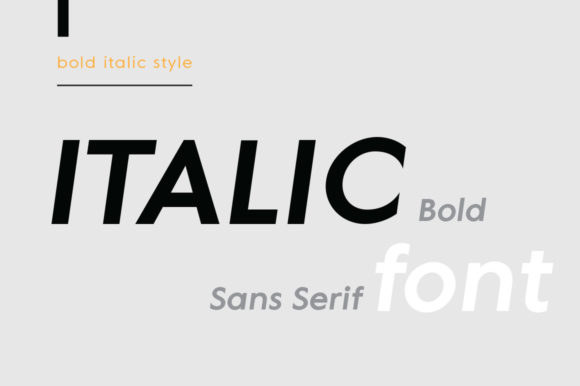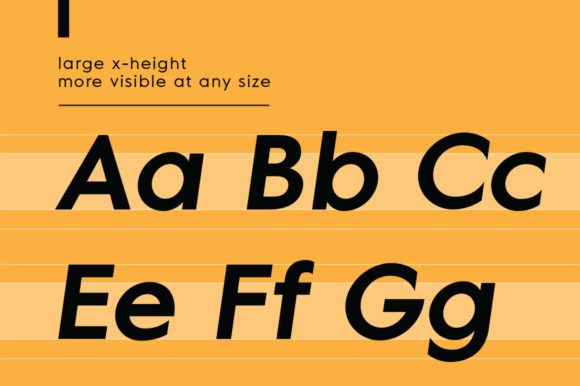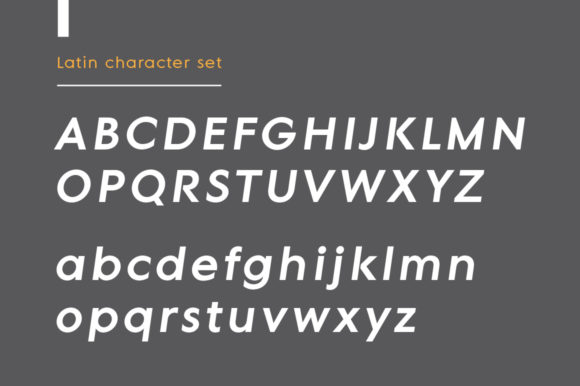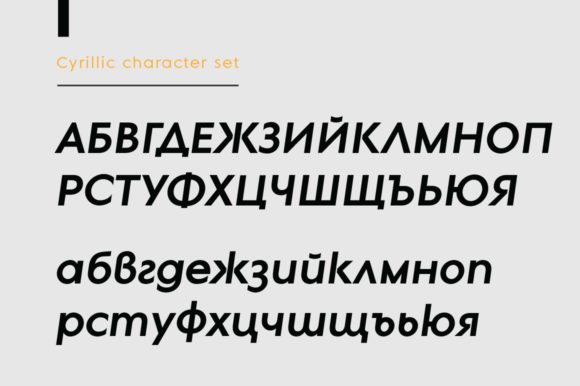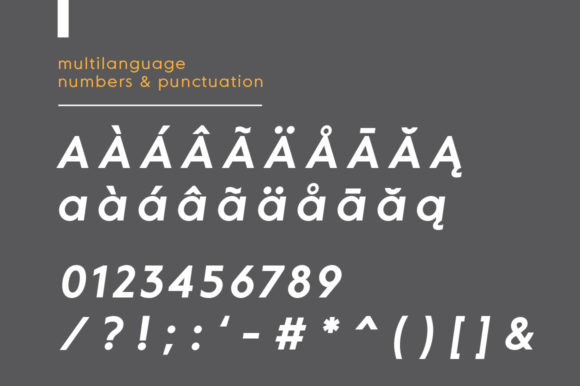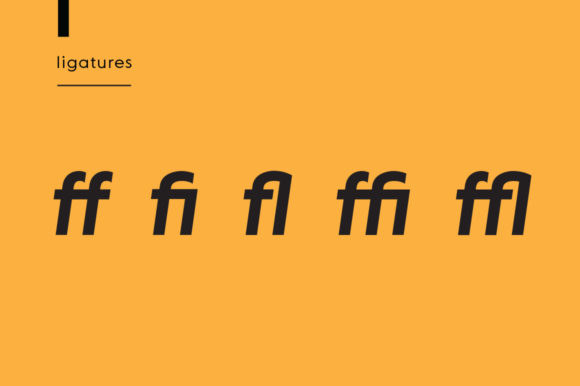
Introduction to MD Grotesque Bold Italic Font
As a designer, you’ve probably experienced that moment of creative block, staring at a blank canvas or screen, trying to find the perfect font to bring your vision to life. For many of us, it’s the font that sets the tone for an entire project. And, let’s be honest, it’s not always easy to find the perfect one.
That’s why we’re excited to introduce you to the MD Grotesque Bold Italic Font, a high-quality, sans-serif font with a minimalist style that’s perfect for designers looking for a clean and elegant design resource. With its bold and italic flair, this font is ideal for adding a touch of sophistication to any creative project, from web design to print materials. And the best part? It’s available for free download, making it an accessible and valuable asset for designers of all levels.
Key Features of MD Grotesque Bold Italic Font
- High-quality typography for creative projects, offering a unique blend of modern and classic design elements.
- Designed for optimal legibility, with a transparent background that allows for seamless integration with any design.
- Perfect for designers looking for a bold, italic font to add a touch of sophistication to their creative projects.
- Part of the MD Grotesque font family, offering a range of styles and weights to suit various design needs.
Honest Review: MD Grotesque Bold Italic Font
I’ve had the chance to work with MD Grotesque Bold Italic Font on a recent creative project, and I must say, it’s been a great addition to my design resource toolbox. The font’s high quality and clean design make it perfect for any project that requires a bold, yet elegant look.
What works well: ✨ The font is highly legible, even at small sizes, making it ideal for titles and headings. The bold and italic styles are well-executed, adding a touch of sophistication to any design. Additionally, the font’s transparent background makes it easy to use with any background image or color.
What doesn’t work so well: ⚠️ The font’s limited character set might be a drawback for some designers, particularly those working on projects that require a wide range of languages or special characters.
Overall, I’m impressed with MD Grotesque Bold Italic Font, and I would highly recommend it to anyone looking for a high-quality, free download font for their next creative project.
- Great for titles and headings
MD Grotesque Bold Italic Font is ideal for a variety of creative projects, including: